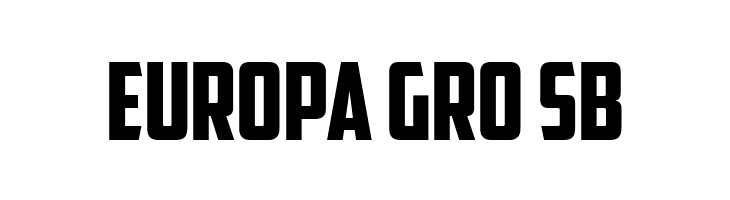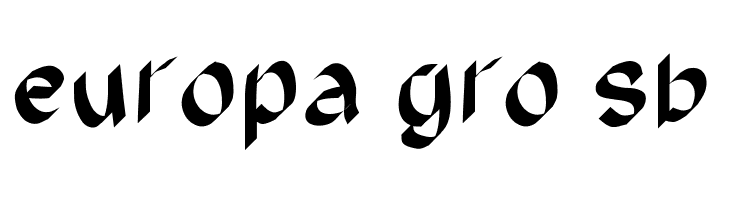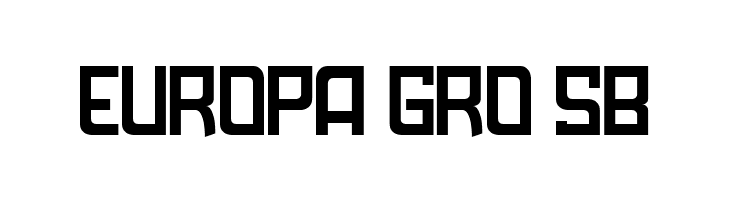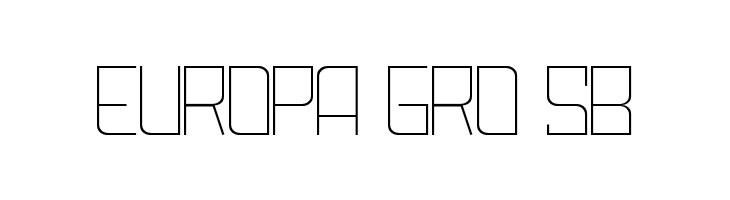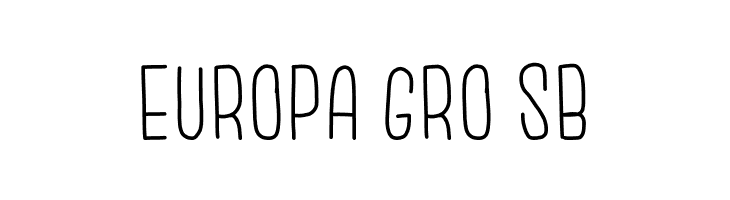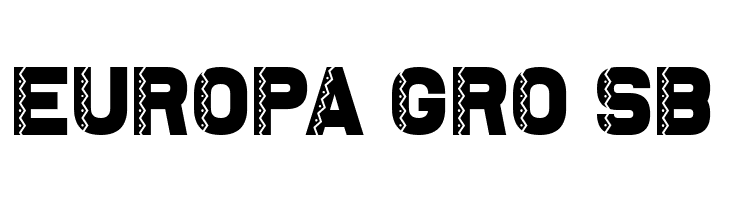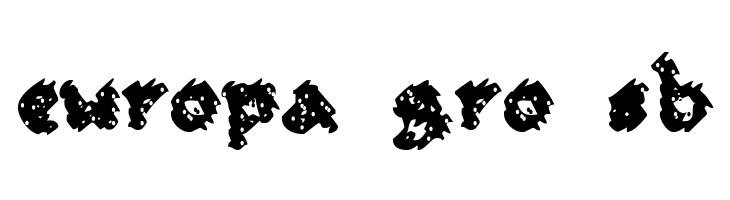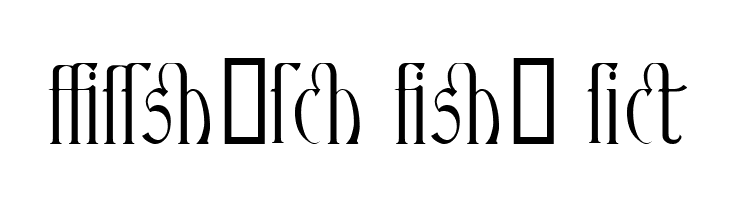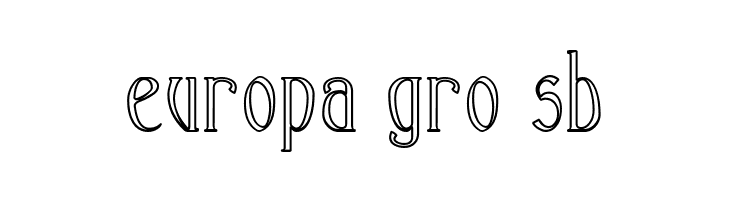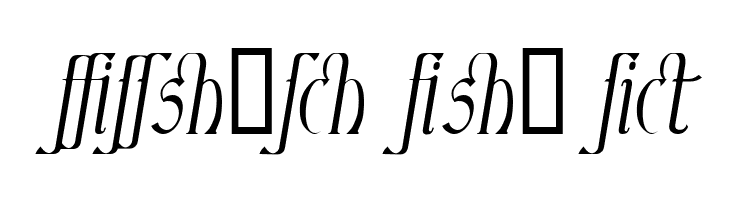
( Andreas Siess - www.andi-siess.de/ )
A modern, geometric font with thin, rounded lines and a minimalist style.
( Andreas Siess - www.andi-siess.de/ )
A bold, heavy, and condensed font with rounded edges and a modern, industrial feel.
An elegant and artistic font with tall, slender letterforms and intricate detailing.
( George Williams - web.archive.org/web/20051223080638/bibliofile.mc.duke.edu/gww/fonts/fonts.html )
A bold, decorative font with high contrast and artistic flair.
( George Williams - web.archive.org/web/20051223080638/bibliofile.mc.duke.edu/gww/fonts/fonts.html )
An elegant, italicized font with medium contrast and flowing design.
( George Williams - web.archive.org/web/20051223080638/bibliofile.mc.duke.edu/gww/fonts/fonts.html )
Elegant italic ligatures with smooth, connected strokes and balanced contrast.
( George Williams - web.archive.org/web/20051223080638/bibliofile.mc.duke.edu/gww/fonts/fonts.html )
An elegant, decorative font with intricate ligatures and flowing curves.
( George Williams - web.archive.org/web/20051223080638/bibliofile.mc.duke.edu/gww/fonts/fonts.html )
An elegant outline font with art deco influences and unique character flourishes.
( George Williams - web.archive.org/web/20051223080638/bibliofile.mc.duke.edu/gww/fonts/fonts.html )
A decorative font with sloped small caps and artistic flair.
( George Williams - web.archive.org/web/20051223080638/bibliofile.mc.duke.edu/gww/fonts/fonts.html )
A decorative font with elegant, artistic letterforms and playful curves.
( Fonts by Sam Wang )
An artistic and decorative font with elongated strokes and intricate details.
( Dry Heaves - www.drybohnz.com/ )
A bold, jagged, and decorative font with a rugged, hand-carved appearance.
( Fonts by Gyom Seguin - last-soundtrack.daportfolio.com )
A bold, distressed font with a gritty, textured appearance.
A bold, expressive handwritten font with dynamic strokes and unique character flourishes.
( Dominique Demetz )
A playful, handwritten font with tall, narrow letters and smooth strokes.
( Syahputra - creativemarket.com/Bexxtype )
A graceful script font with flowing, interconnected letters and artistic flourishes.
A playful, bubble-like font with thick, rounded edges and a hollow effect.
A pictorial, decorative font based on pre-Columbian American art.
( aldedesign - Alde Saputro - creativemarket.com/aldedesign?u=aldedesign )
An elegant script font with flowing lines and high contrast, perfect for sophisticated designs.
( Fonts by Barry Bujol - theoriginal19.blogspot.com )
A bold, decorative font with a grunge and distressed style.
( KELGE Fonts - www.behance.net/contactkel17e1 )
A sharp, elongated font with a mysterious and eerie style.
( KELGE Fonts - www.behance.net/contactkel17e1 )
A sharp, elongated font with a distinctive and eerie style.